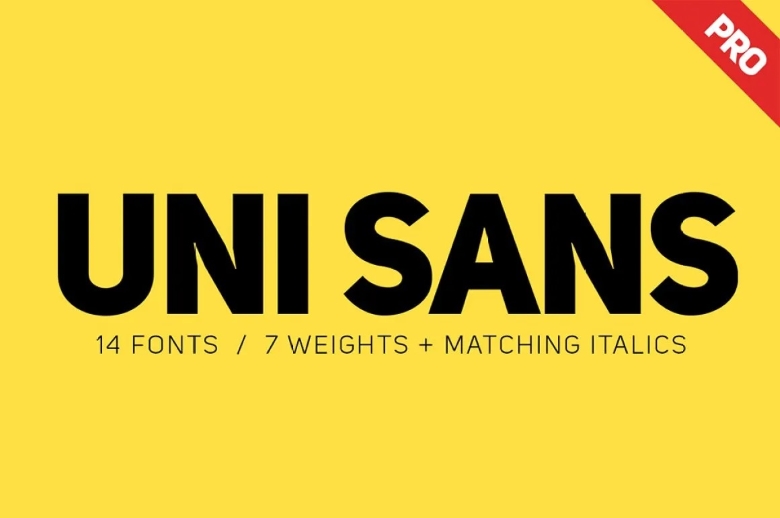
Uni Sans Font
Uni Sans typeface family consists of one hundred percent fourteen styles: seven with normal and seven italics. It is characterized very good readability in both – web & print design areas, smooth forms of geometrical patterns, good kerning, good web-font behaviour, readability etc Un – Sans is also based on grotesque roots like DIN or Dax – but it has personal and unique approach to softened geometry.
The font family is perfect for headlines of various sizes and for the text blocks that are also available as the maxi and the mini ones. Uni Sans font is versatile and can be used for any kind of graphic designing for web and print or for motion graphics and is perfect for t-shirts etc and items like posters and logos. PDF Specimen also available
Uni Sans Font Family